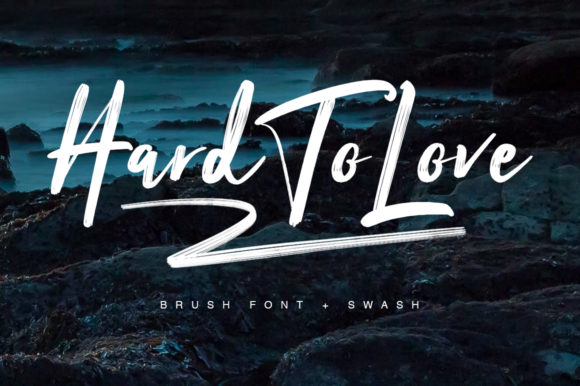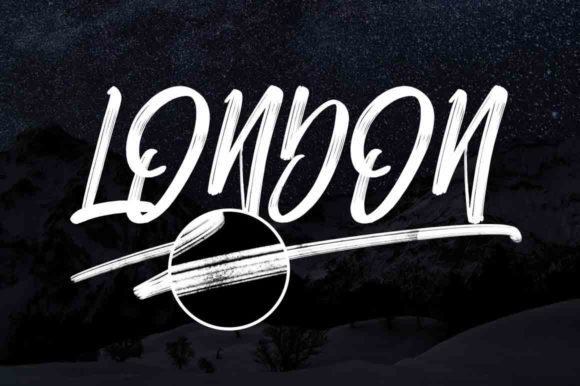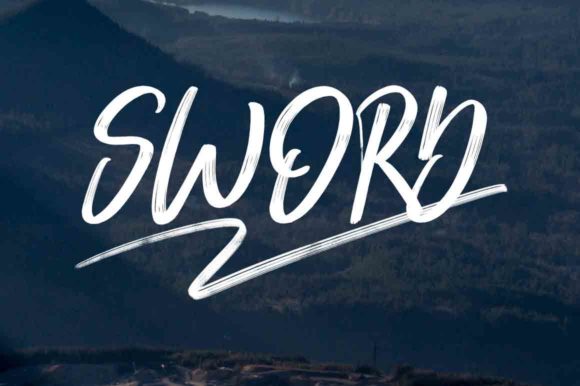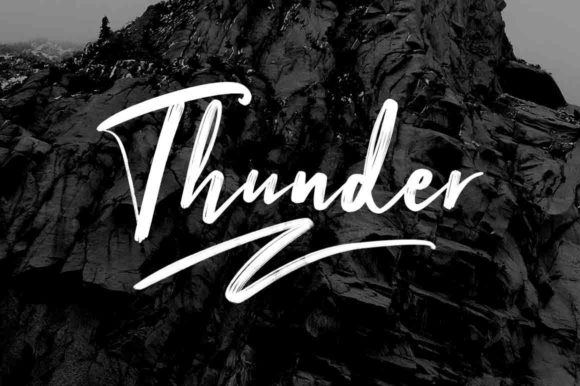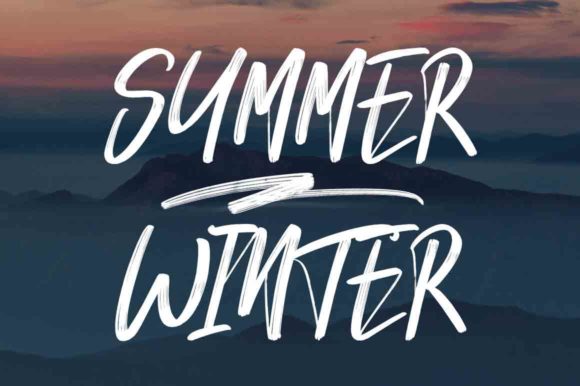
About Hard to Love Font
Hard to Love is a beautiful and relaxed brushed handwritten font. Masterfully designed to become a true favorite, this font has the potential to bring each of your creative ideas to the highest level!